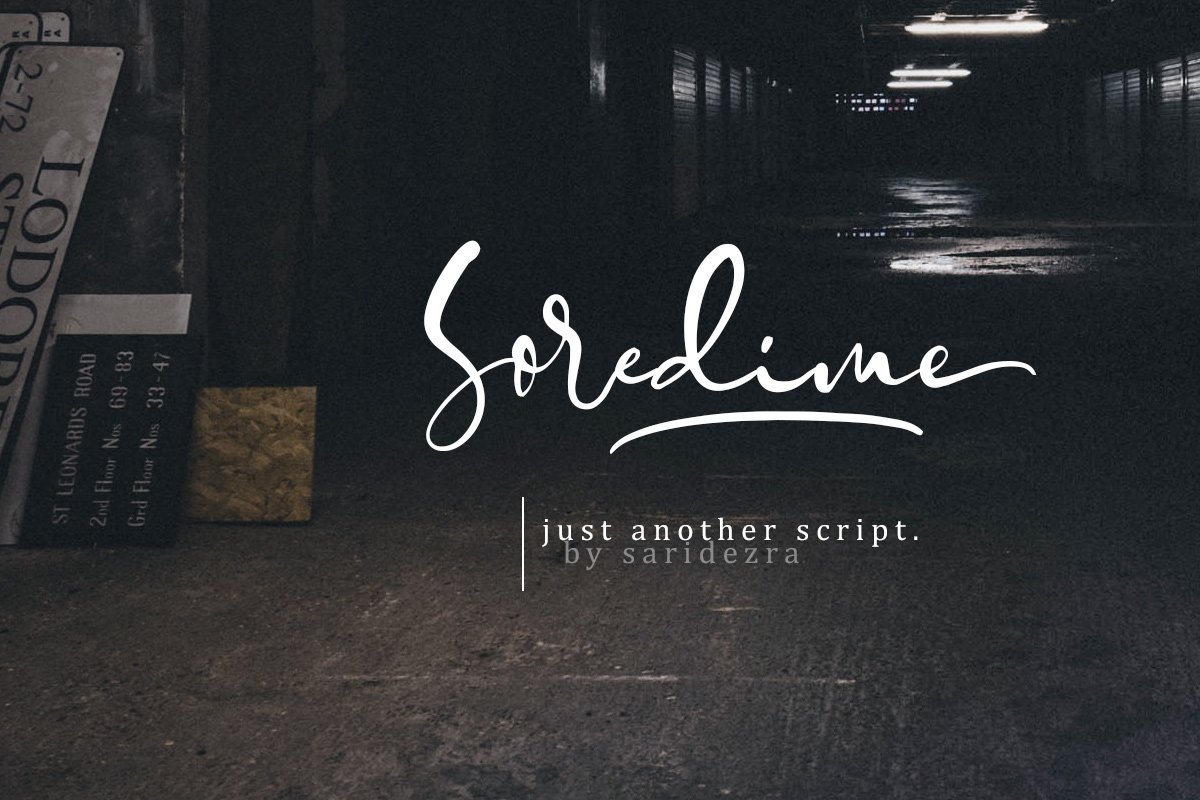
Soredime - Signature Script
Soredime Signature Script included alternates, Ligatures, and also Underline. Soredime is a signature font that you can use to make a logo for branding, beautiful fashion design, suitable for wedding invitation, or handwritten quote. Also already PUA Encoded.